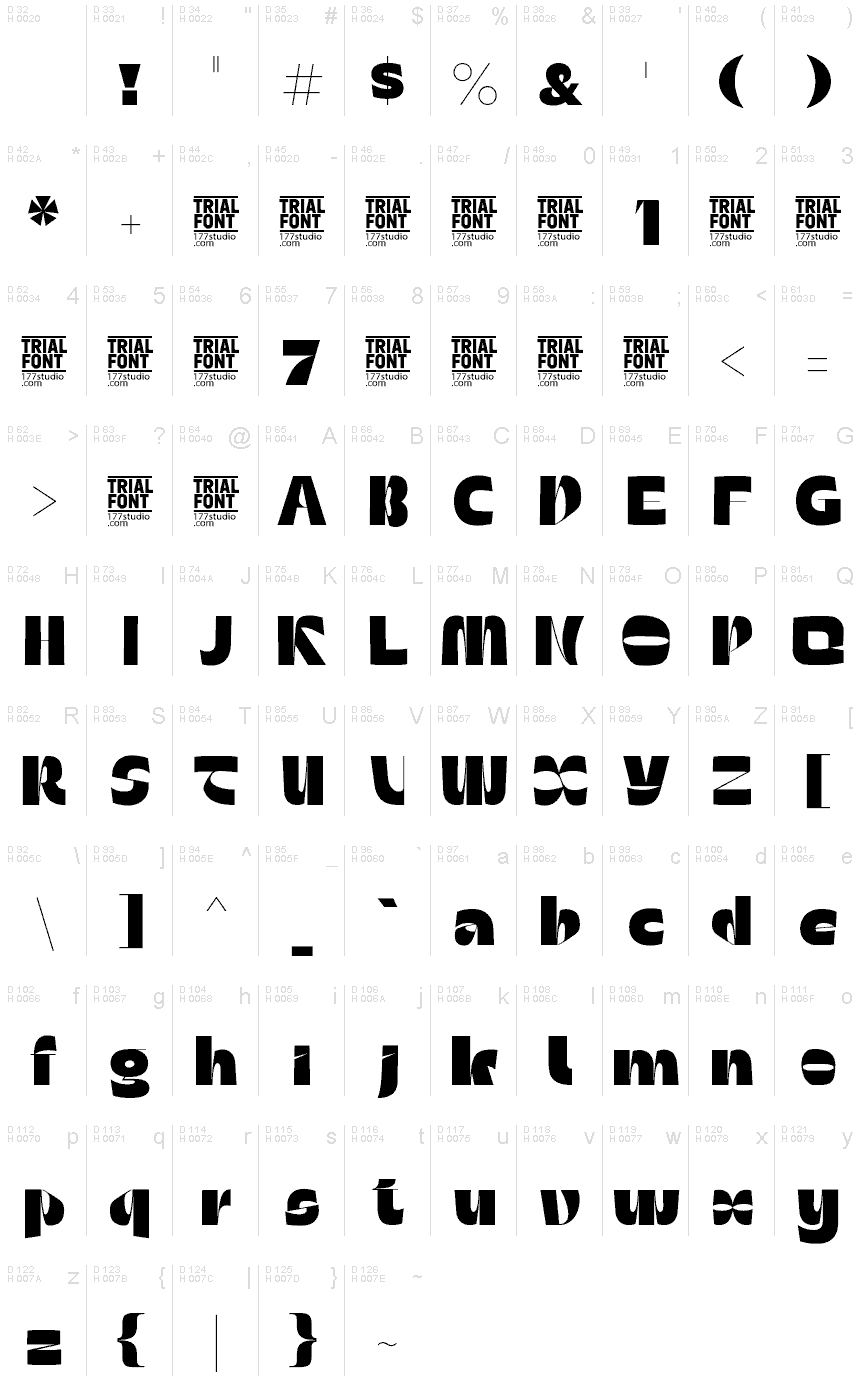
LATEST ECLIPSE DEMO Regular
Latest Eclipse font by 177Studio is a futuristic display option with bold, unique shapes. Featuring geometric influences and a sleek, modern appeal, the font unifies the elements in an attractive construction decorated with abstract endings and vintage vibes. It brings to life simple letters with high visibility and full uppercase blocks.
Its exceptional visual elements make it highly suitable for advertising designs, branding materials, posters or flyers. Use it also for product packaging frontlines typography on books or magazines including but not limited to food items and electronics. Premium labels for clothes or makeup can feature this free font as well.